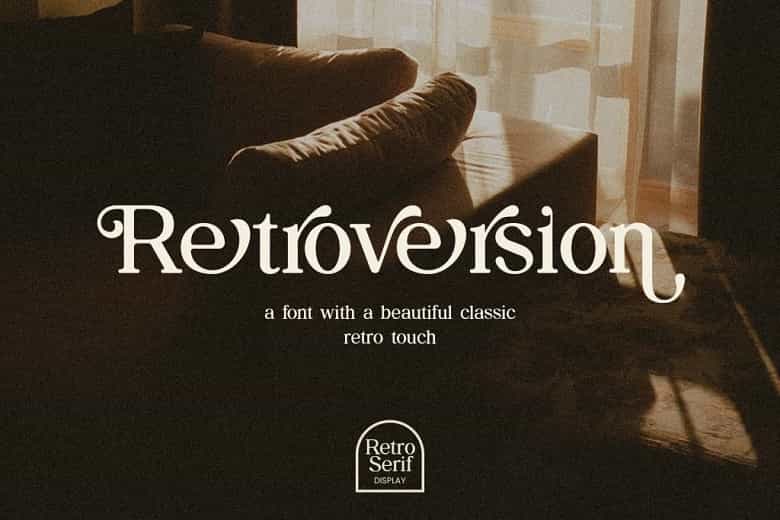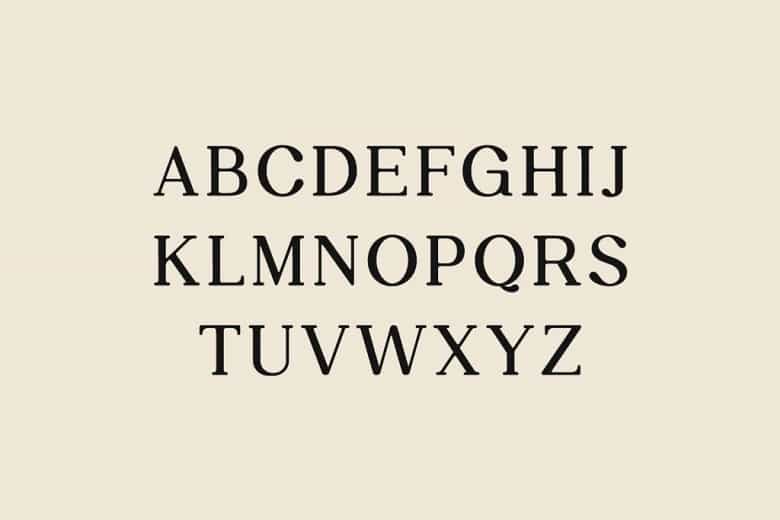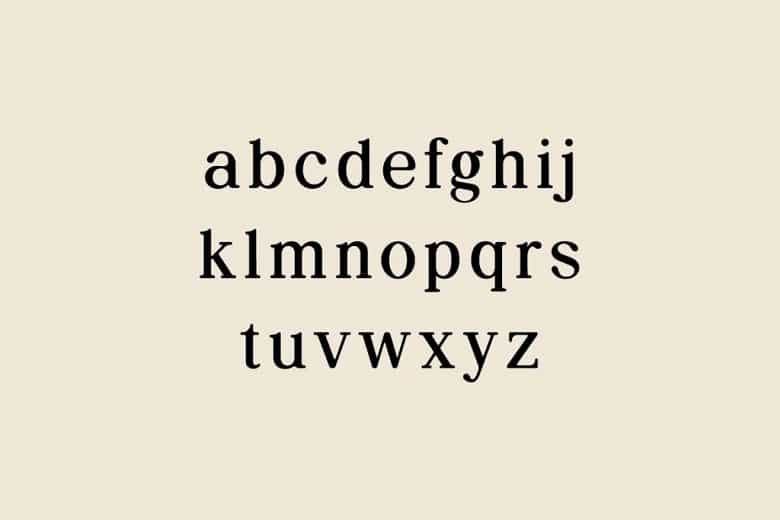
Retroversion is a retro serif font. The font looks very classy elegant and stylish. This font is versatile and can therefore be used in many projects like logos, weddings, magazines or books, websites, branding and more.